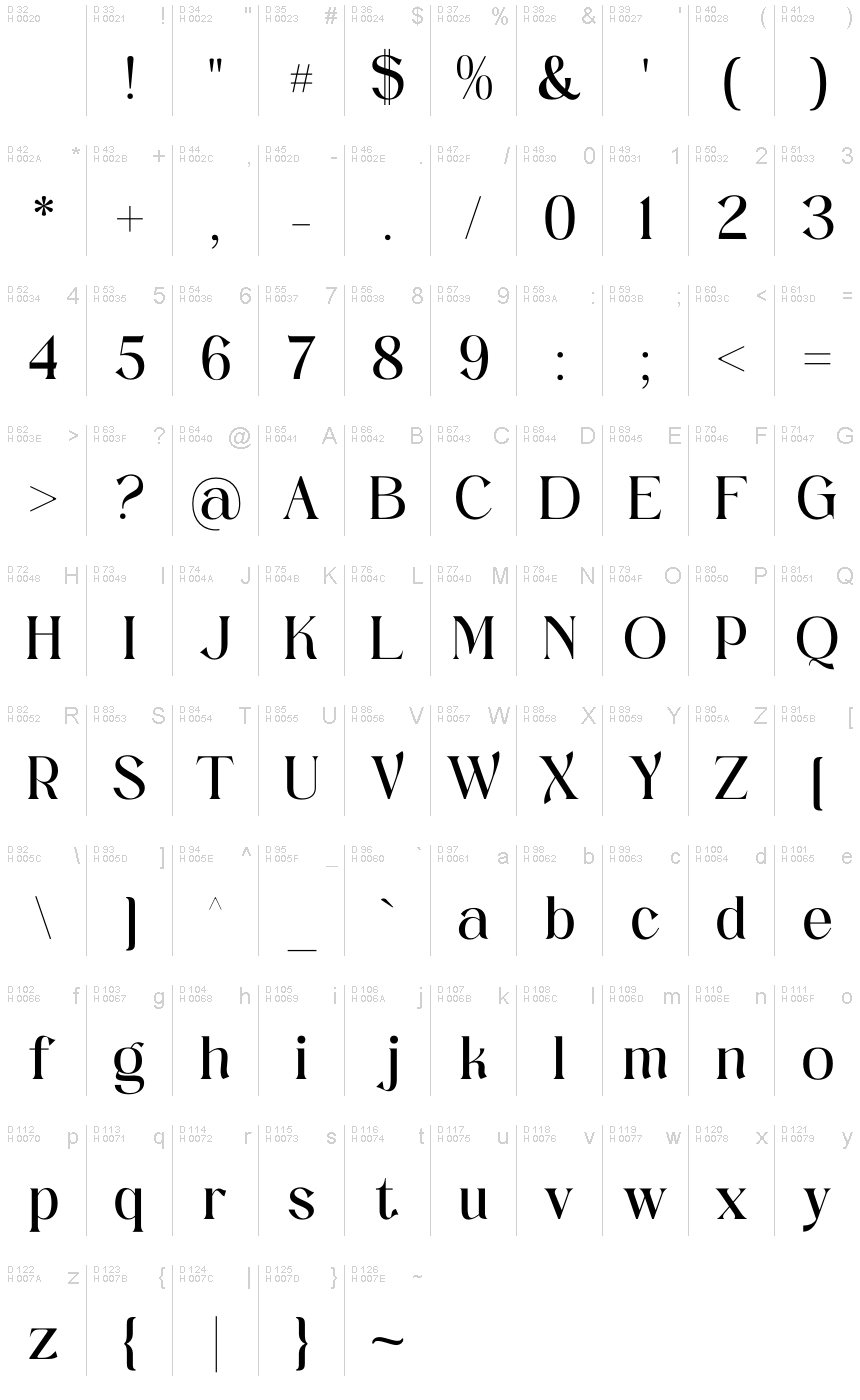
Rugakile
Rugakile, a captivating serif font created by Storytype Studio, commands attention with its refined elegance and timeless charm. The intricate letter forms evoke a sense of sophistication and artistry, seamlessly blending tradition and modernity. This font's striking visual presence lends itself to a variety of design applications, from editorial layouts to sophisticated branding initiatives.
Rugakile's versatility shines through its ability to convey a range of moods and tones. Its serifs, meticulously crafted, add a touch of refinement that elevates any project, while the subtle variations in stroke thickness create a harmonious rhythm that draws the eye effortlessly across the text. Whether you're crafting elegant invitations, curating high-end magazine spreads, or seeking to infuse your branding with a sense of distinguished style, Rugakile emerges as a compelling choice to elevate your design aesthetic.